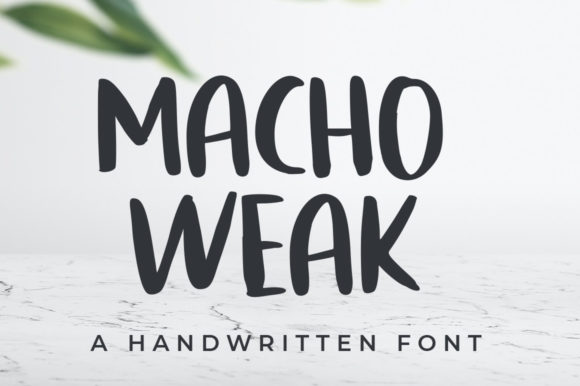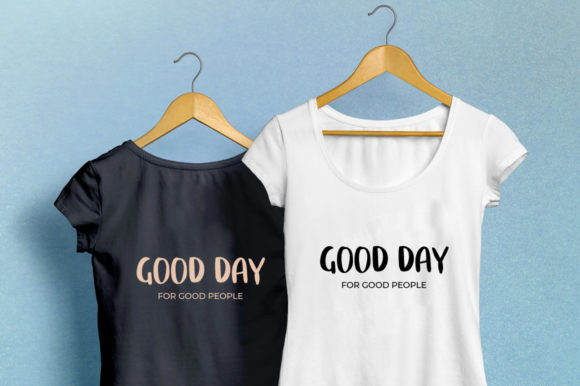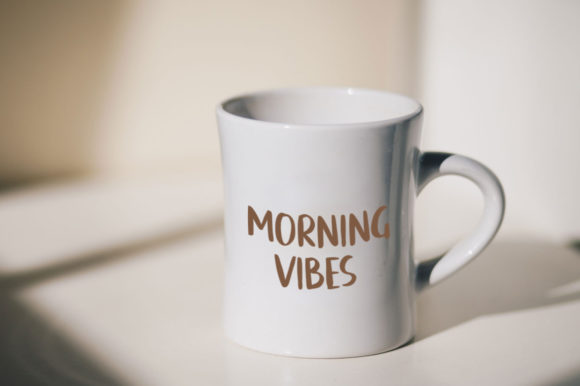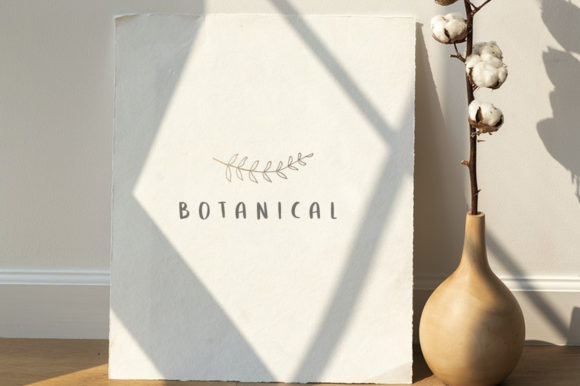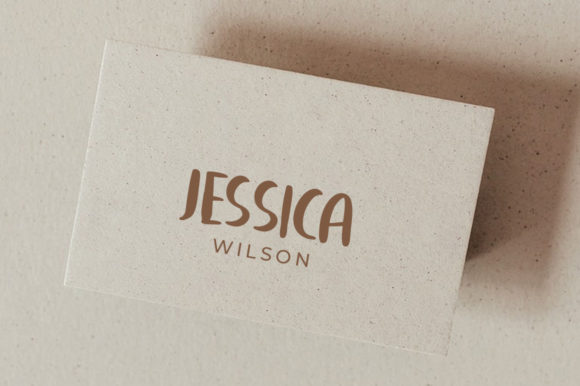
About Macho Weak Font
Macho Weak is a gorgeous and bold handwritten font, crafted to give your headlines and logotype projects a stylish touch. This font reads as strong, confident, and dynamic, so add it to your designs and you will cherish the final result.